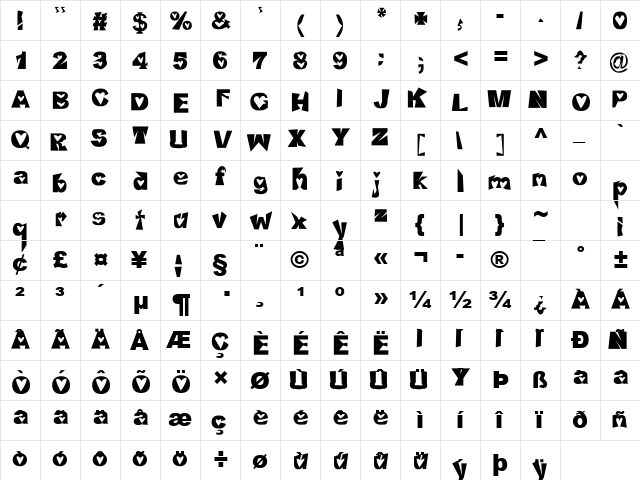
Heartless Valiumwhore Regular
Design Context for Heartless Valiumwhore Typeface
Heartless Valiumwhore is a composed and adaptable typeface that performs quietly and consistently across a wide range of design contexts.